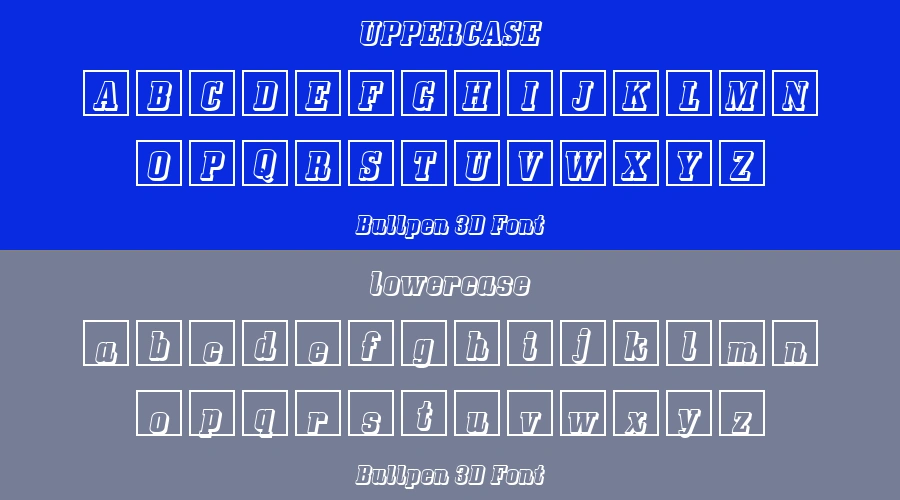
About Bullpen 3D Font
Bullpen 3D Font stands out for its distinctive combination of teardrop terminals and page color. Ideal for marketing materials, it provides the consistency and quality certification that professional projects demand. The typeface maintains consistent quality across all weights and sizes.
Key features include refined calculated proportions and practical ordinals, enhancing typographic expression. In headlines applications, Bullpen 3D Font demonstrates exceptional emotional response. The joint detail and technical innovation contribute to its distinctive character and professional appeal.